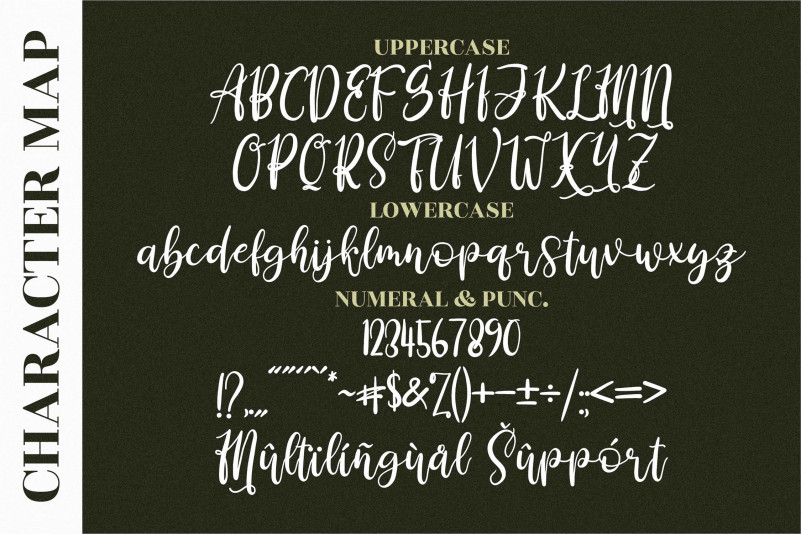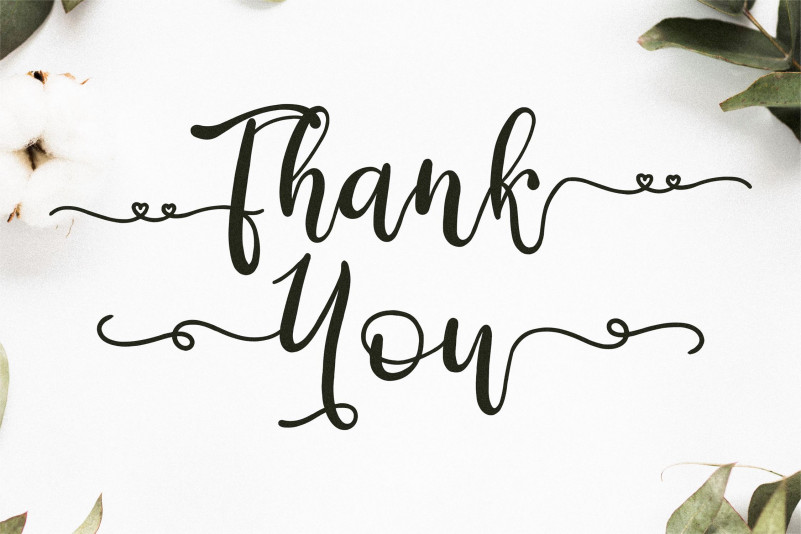
Derlinata Space Calligraphy Font
This is an outstanding script font. This font is neatly crafted and highly detailed. Whatever the topic, this font will be a wonderful asset to your font library, as it has the potential to enhance any creation. Derlinata Space is PUA encoded which means you can access all of the glyphs and swashes with ease!